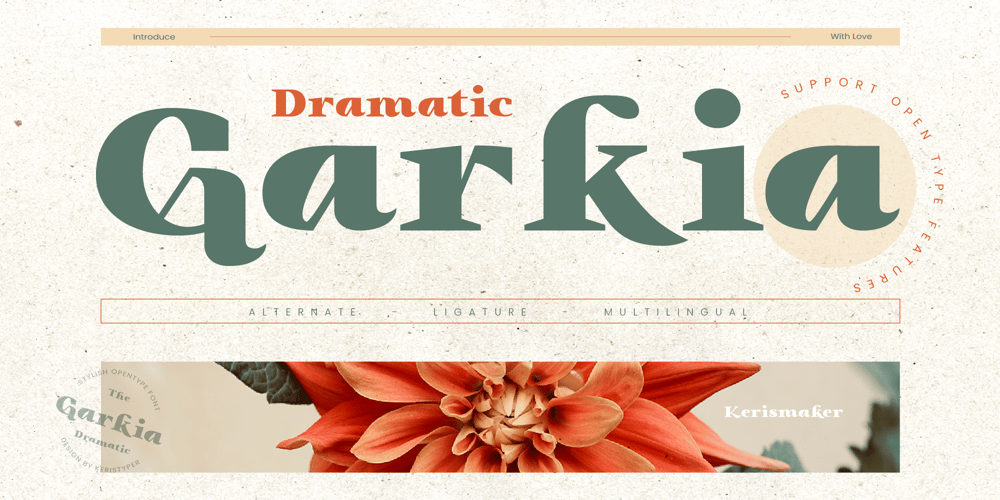
Garkia
Garkia font
Garkia Font Family was designed by Tezar Tantular and published by Keristyper Studio. Garkia contains 1 styles and family package options. Garkia is an elegant serif font that exudes drama and sophistication. With its sleek lines and beautiful curves, it is perfect for creating striking headlines, editorial designs, and branding materials that demand attention. The bold yet refined look of Garkia makes it an excellent choice for high-end fashion, luxury, and beauty brands.Featured: Standard, Uppercase & Lowercase Numeral & Punctuation Multilingual : ä ö ü Ä Ö Ü ß ¿ ¡ Alternate & Ligature PUA encoded We recommend programs that support the OpenType feature and the Glyphs panel such as Adobe applications or Corel Draw, so you can use all the variations of the glyphs.Hope you enjoy our fonts!